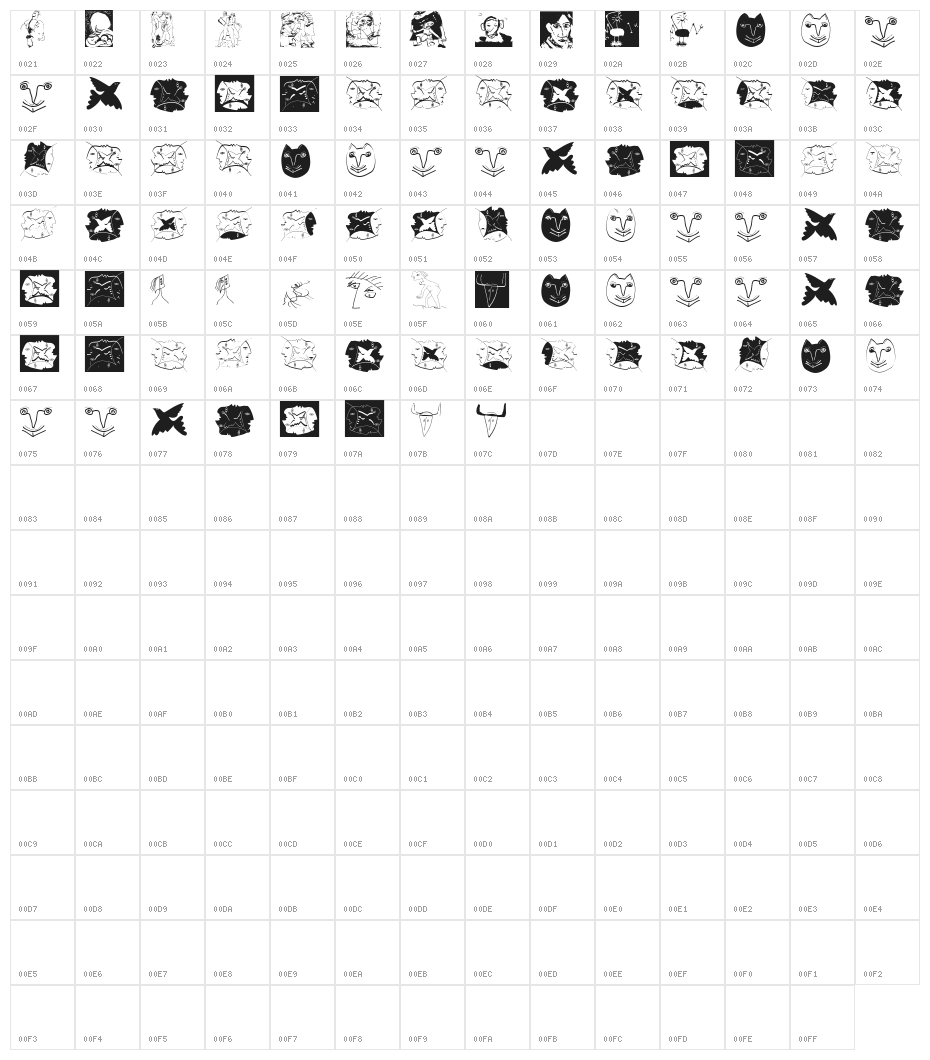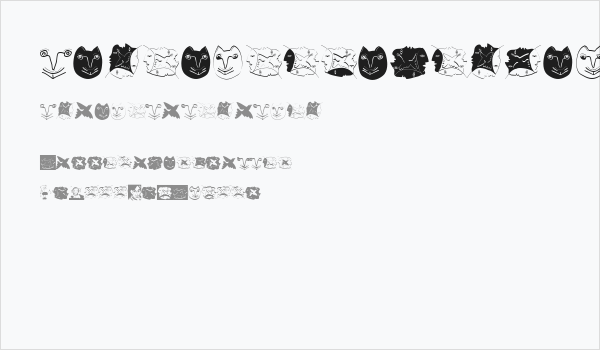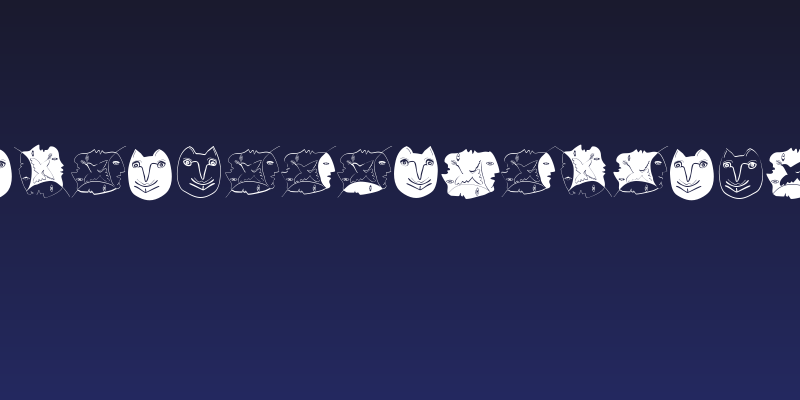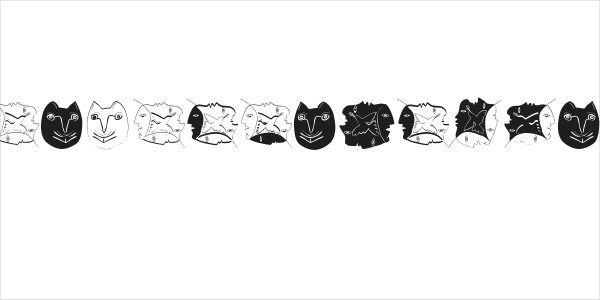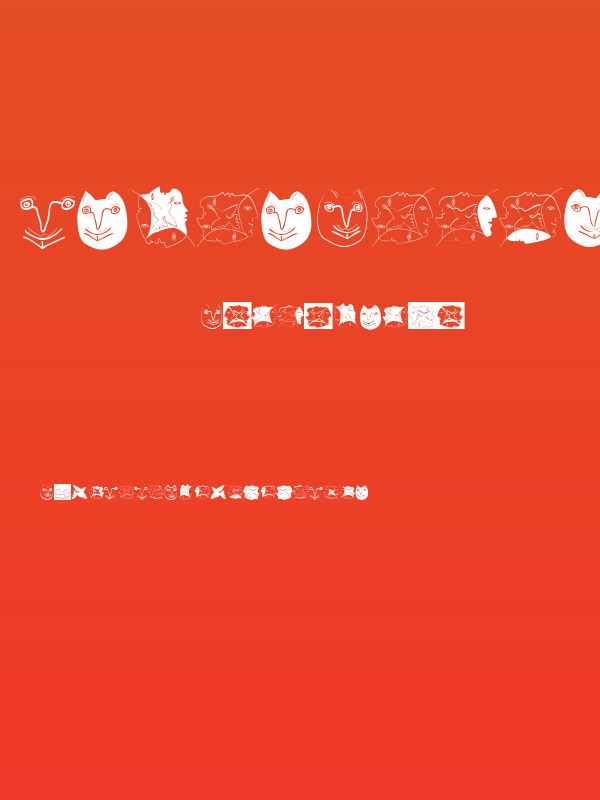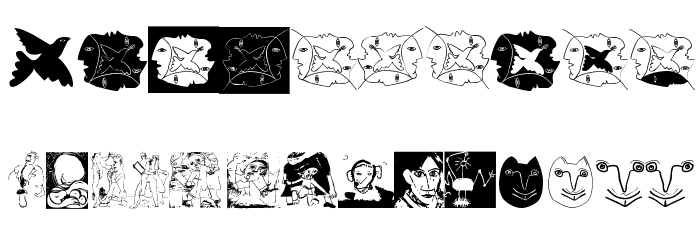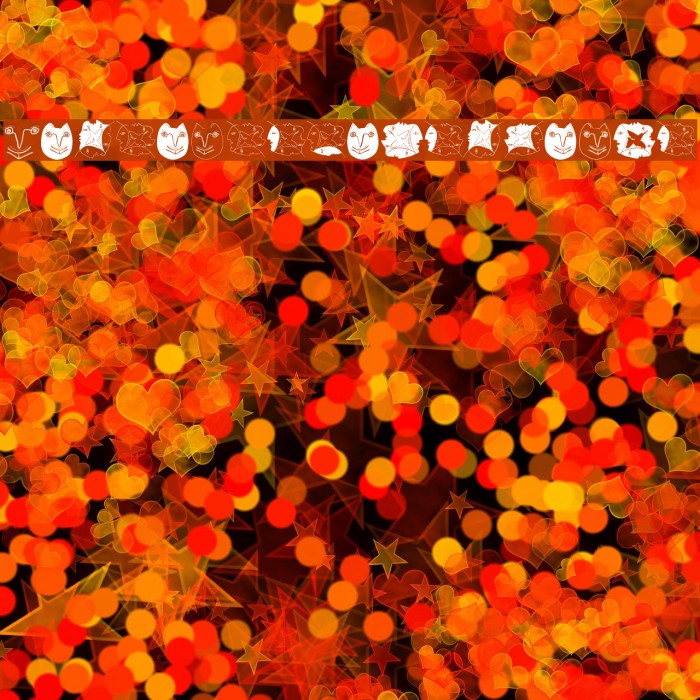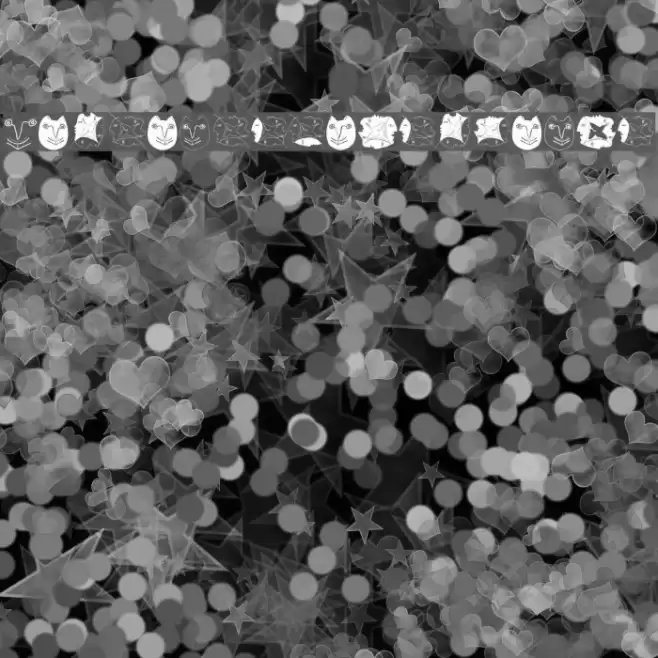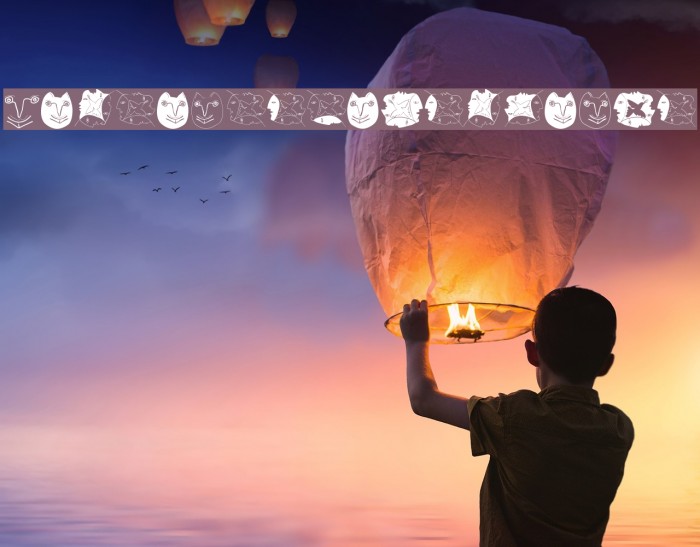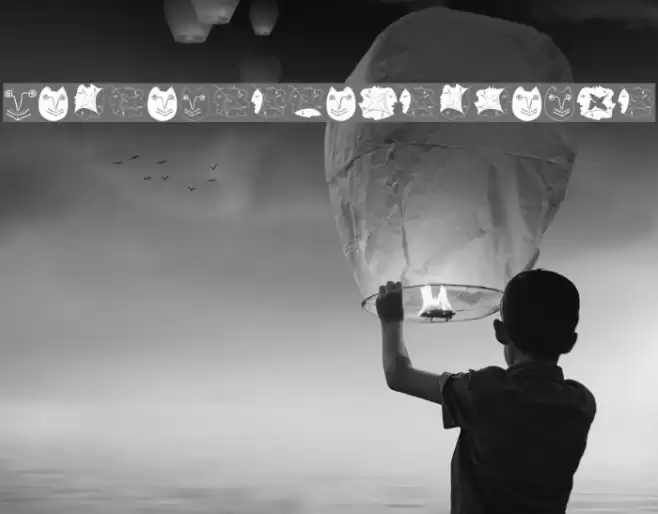
VariationsForPablo Font
VariationsForPablo Description
This is not a traditional font but rather a collection of artistic symbols and illustrations inspired by abstract and cubist art. The characters are composed of various abstract shapes, faces, and figures, each with a unique artistic flair. The design is heavily influenced by modern art, featuring bold lines and contrasting black and white elements. Each symbol is distinct, showcasing a variety of artistic expressions rather than uniform typography. The collection includes a range of abstract faces, birds, and other artistic motifs, making it more of an art piece than a functional typeface.
| Overall Style | Modern, Abstract, Artistic |
| Use Case | Artistic designs, Posters, Creative projects |
| Proposed Projects | Ideal for art projects, creative designs, posters, and any work requiring a unique artistic touch. |